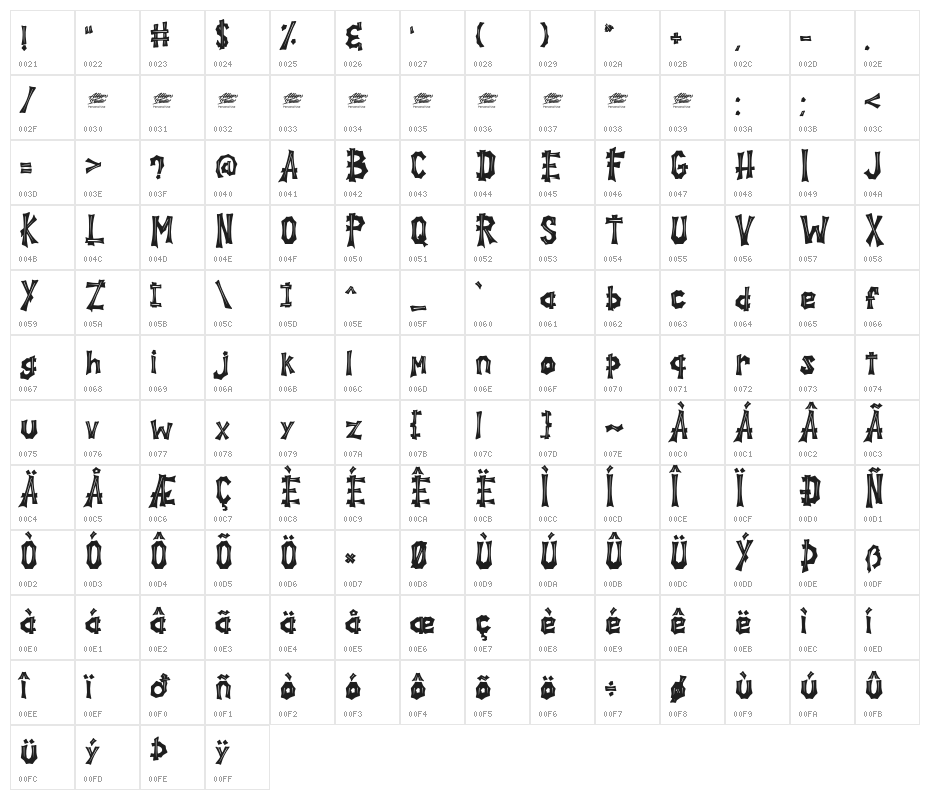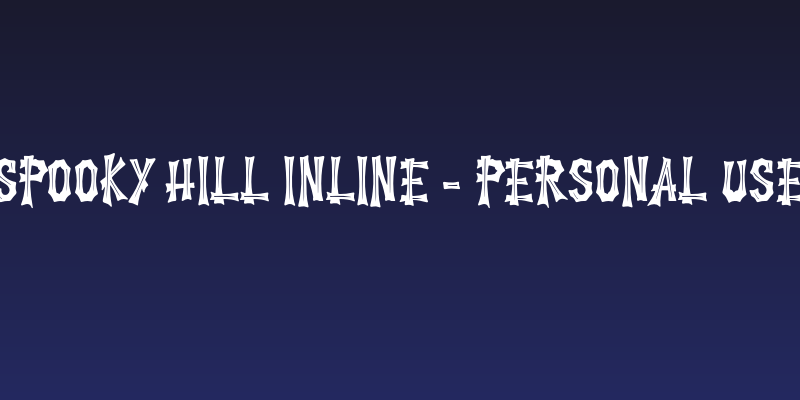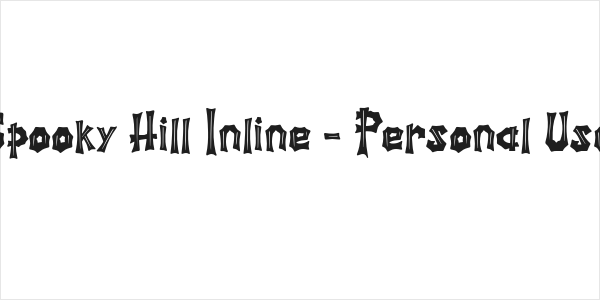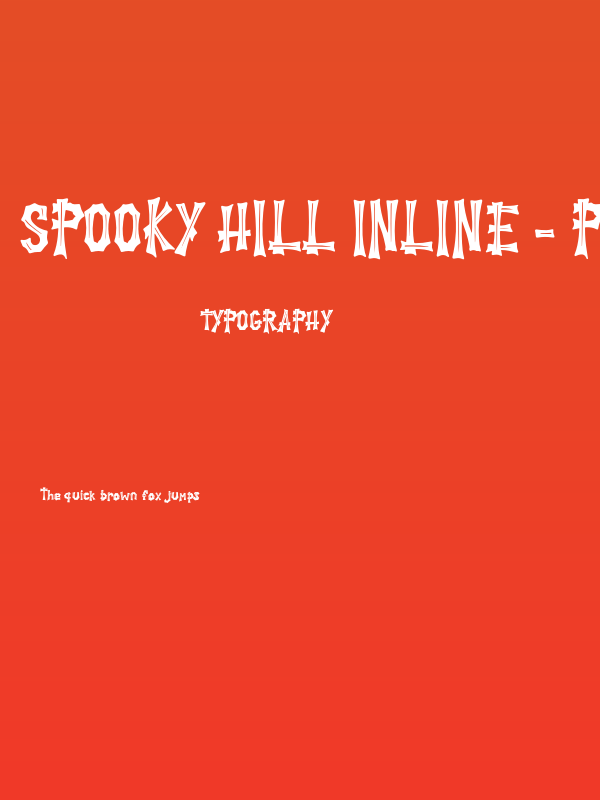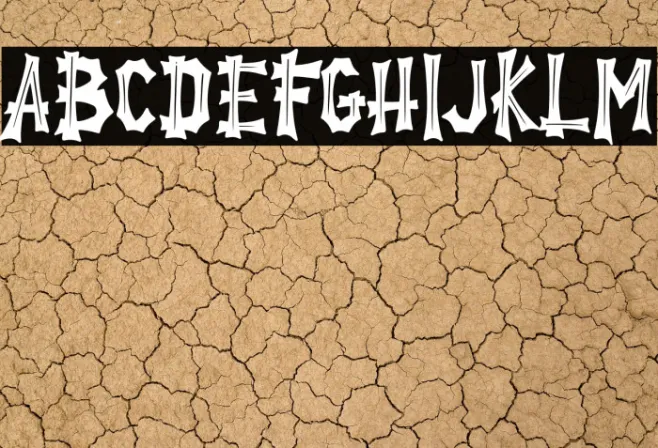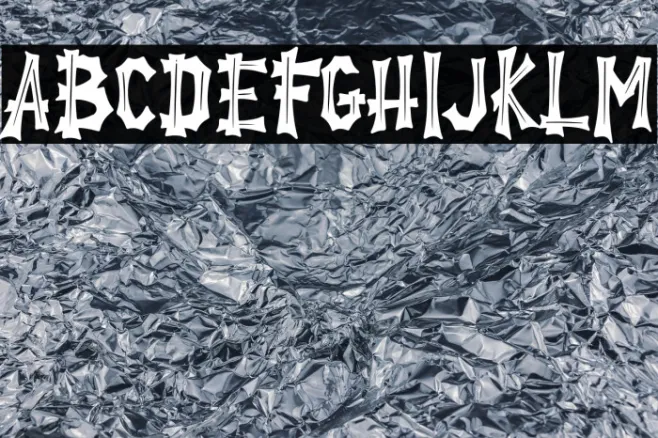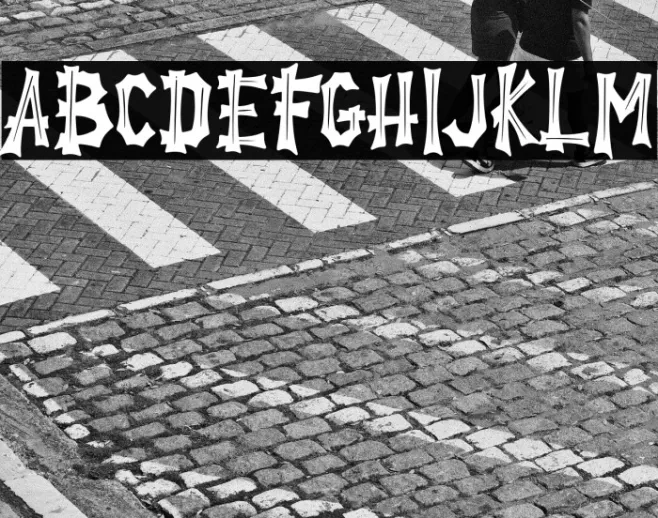
Spooky Hill Inline - Personal Use Font
Spooky Hill Inline - Personal Use Description
This font features a unique, spooky design with jagged edges and an uneven baseline, giving it a haunted, eerie appearance. The uppercase and lowercase letters are distinct, with sharp angles and irregular strokes that create a sense of movement and unease. The numbers and special characters follow the same style, enhancing the font's cohesive look. This font is perfect for Halloween-themed projects or any design that requires a touch of the macabre. Its bold and eye-catching style makes it ideal for headlines and titles, while its decorative elements add a playful yet sinister vibe.
| Proposed Projects | Ideal for Halloween invitations, horror movie posters, themed event flyers, and spooky merchandise designs. |